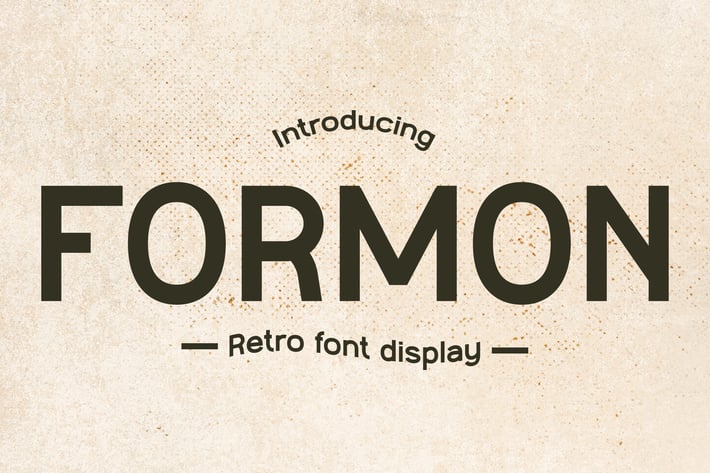
Retro Font - Formon
Formon is a stylish sans-serif font that captures the essence of vintage retro design from the 70s. With its clean lines and classic appeal, Formon is perfect for creating memorable logos, engaging quotes, and distinctive branding materials. Whether you're designing for restaurants, coffee shops, or any creative project, this font brings a nostalgic yet contemporary touch to posters, greetings, packaging, and more. Ideal for headlines and advertising, Formon offers a timeless look that stands out in any setting.